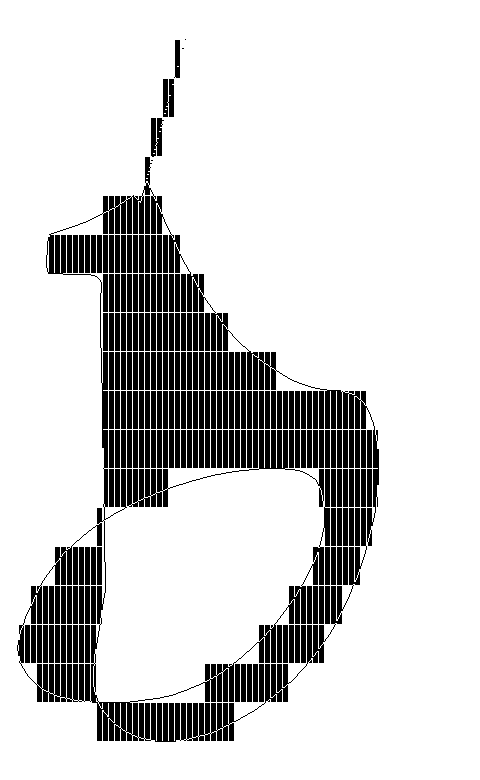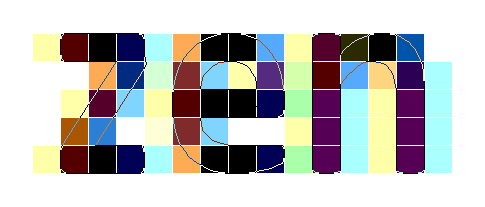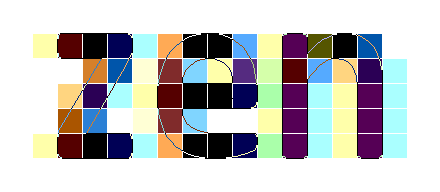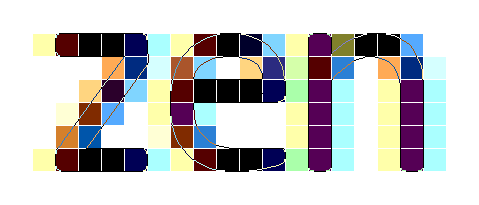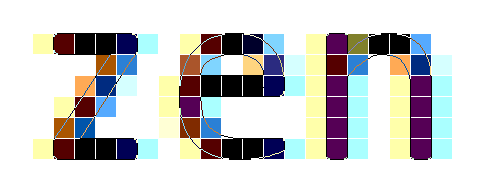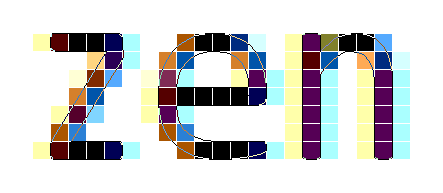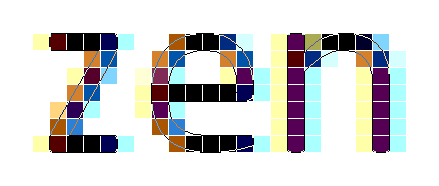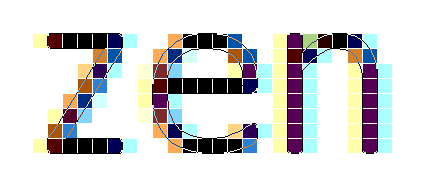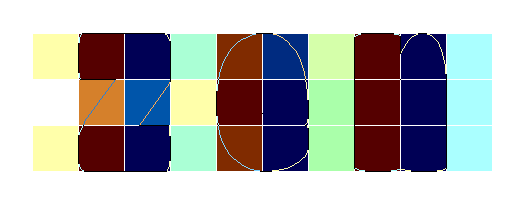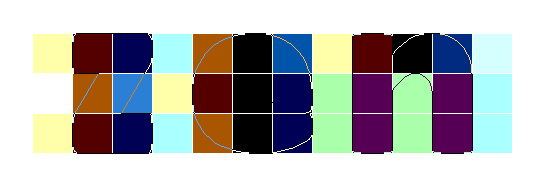
Suffice to say, the documentation of TT hinting is either too shallow (not explaining enough, as in the case of the Fontlab manual) or highly advanced (The Raster Tragedy). I have some questions that I'll just get right to:
1: What is the difference between single and double links?
2: The Raster Tragedy seems to say that with the correct hinting, very few deltas are needed, but doesn't describe a method (or I just couldn't decode the advanced language) to do so. Take for example an "o": with simple links, the stems are easily controllable, but the northeast/northwest/southeast areas will still have stray pixels or odd widths. How do you deal with those without deltas?
3: How far can the interpolation links move a point?
4: How do you approach diagonals?
5: How do you approach intersections, like in an "x"?
6: Is there a way to move an alignment zone one pixel for the whole font at a given ppm, or do I have to do this manually for each glyph?
7: How do you hint an "s"?
8: How do you hint diagonal terminals?
I realize this is a lot, but I've read all documentation I've been able to find in and out +10 times now and this baby ain't giving up her tricks.
> 1: What is the difference between single and double links?
With a single link, the origin point of the link needs to be "touched" by a different instruction (align, another single link, interpolation instruction). So a single link cannot exist "by itself", it needs to exist within a chain of instructions. If you add a new single link to an untouched point, FLS will automatically first add an alignment instruction. But if the point from which you start a single link already is touched by a different instruction, then FLS won't add the attachment.
With a double link, you can specify a distance between two points but none of those points needs to be previously "touched".
Example of double link (in the middle stem):
Example of interpolation + single link (in the middle stem):
As far as hinting strategies for diagonals, intersections or "s", there are many. I hope that some more experienced hinters tune in here.
Thanks Adam. I didn’t really understand when I should use those instead of the single links. Maybe in the crossbar of "e", as I can’t connect the single links to the bottom (or) top anchor in a row like horizontally. If I do use double links, how can I still control it’s (the crossbar’s) position?
I’m beginning to realize how much design decision there is in hinting. Stray pixels is one thing, sure, but questions like when circular characters should go from square sides to rounded, when to supress design features and when not to, spacing etc. are much more important IMO.
Answering my own question:
6: Is there a way to move an alignment zone one pixel for the whole font at a given ppm, or do I have to do this manually for each glyph?
Yes, you can use the yellow arrow on each alignment zone to adjust it for the current ppm. The Fontlab manual mislead me here because it talked about using this trick to fix single letters that were off on the x-height.
Here's an idea how an extra "stem" can be used to do some basic control of the diagonals.
I've started hinting this glyph from the center outwards (in the x-direction). First, I've created a double link on the bottom "terminal", and interpolated the cusp point on it.
I've created a new stem and made single links to the outside glyph boundaries and to the sidebearing points, plus single links inwards on the top terminals.
Now, in the TrueType hinting options dialog, I can control the ppm3 value to decide how steep the diagonal should be at a given ppm. (Scroll the images to the right to see the TT hinting option dialogs. Observe the ppm3 value for the "X: v 393" stem, which is the "stem" that controls the width of the diagonals.)
In a "v" shaped like this, starting from the middle with a double link and going outwards seems the most effective way to ensure the symmetry of the glyph while also maintaining control over the width of the flat terminals.
Similar technique for "w": starting off with a double link for the top middle terminal, and working outwards:
Since I've created this additional "stem" (X: w 330), in very small sizes (8-10 ppem) I can make the "w" really wide so it doesn't "collapse" and remains readable.
Wow, Adam, this is extremely valueable!
FF >I realize this is a lot, but I've read all documentation I've been able to find in and out +10 times now and this baby ain't giving up her tricks.
To double-check what the correct advance width should be, in pixels, evaluate
px = (pt × dpi × aw)/(72 × emHeight)and round the result. If you allow integer ppem sizes only (VTT forces this flag—I was told to do so) then first determine your ppem size
ppem = (pt × dpi)/72round the result, and then evaluate
px = (ppem × aw)/emHeightand round the result—again (“Double Rounding Jeopardy”). This may yield a different advance width in (rounded) pixels, but that’s because e.g. 11 pt at 96 dpi gets rounded to 15 ppem while the actual ppem size would be 14 2/3.